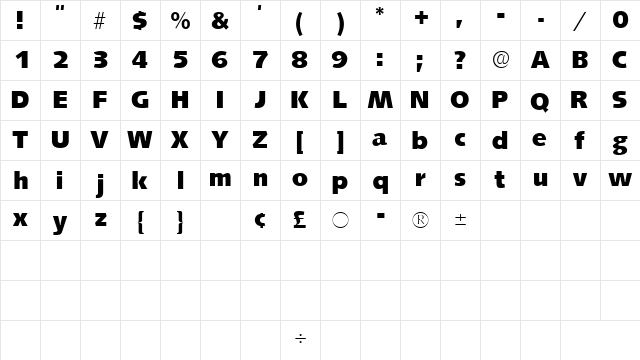
LansetteSSK Regular
Design Context for LansetteSSK Typeface
LansetteSSK takes a measured approach to typography — its balanced proportions and neutral character make it a reliable workhorse for both digital and print work.